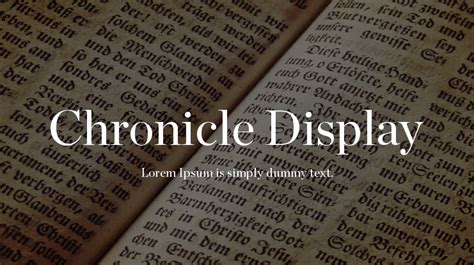
Chronicle Display A Font. Web complete family of 30 fonts: Web chronicle display was designed for use at large sizes and contains three different widths, six different weights and versions for two different sizes, each available in both roman and italic.
Chronicle display contains 60 styles and family package options. Web complete family of 30 fonts: Web chronicle display was designed for use at large sizes and contains three different widths, six different weights and versions for two different sizes, each available in both roman and italic. Moreover, you can embed it to your. Chronicle display font family was designed by jonathan hoefler and published by hoefler & co. Web download chronicle display for free, view sample text, rating and more on fontsgeek.com.
Chronicle display font family was designed by jonathan hoefler and published by hoefler & co. Chronicle display font family was designed by jonathan hoefler and published by hoefler & co. Web complete family of 30 fonts: Web chronicle display was designed for use at large sizes and contains three different widths, six different weights and versions for two different sizes, each available in both roman and italic. Chronicle display contains 60 styles and family package options. Web download chronicle display for free, view sample text, rating and more on fontsgeek.com. Moreover, you can embed it to your.